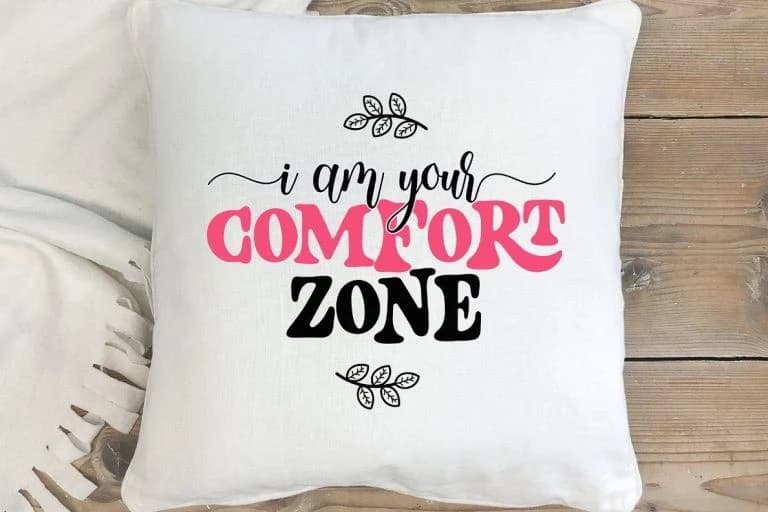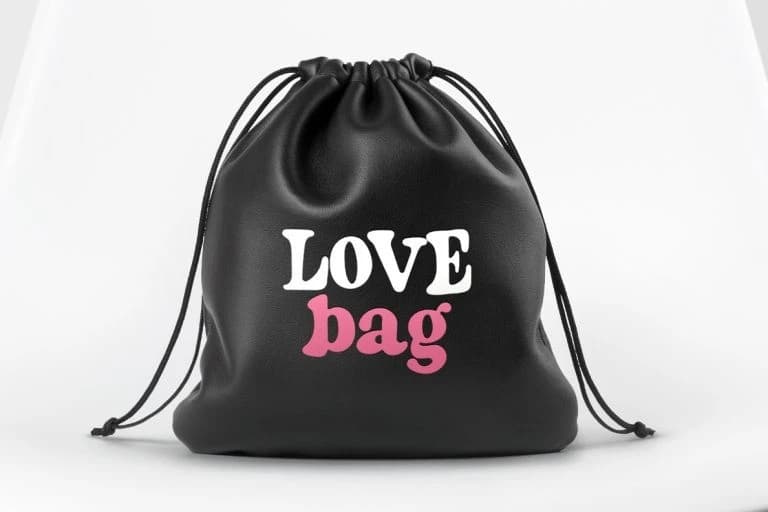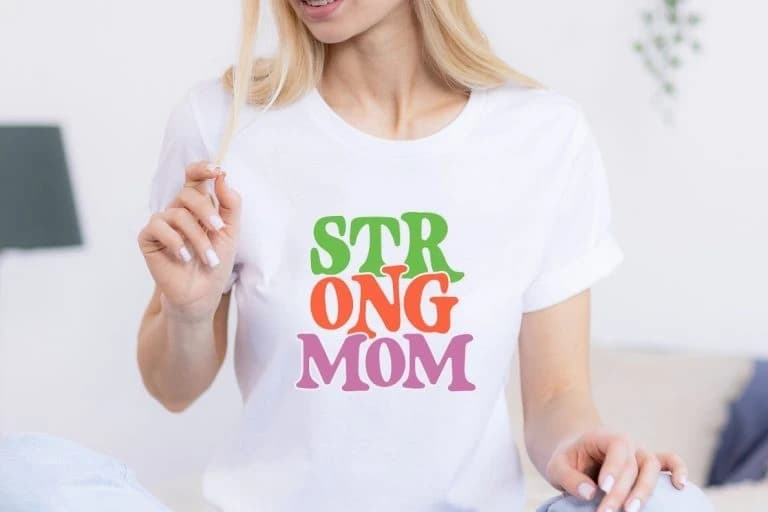
Brondy Display Font
Brondy Display Font is cute retro serif font. It has vintage, groovy, and fun style. It has some ligatures for uppercase to give more options in designing. This font is adorable font for design that needs cute and retro style, such as back to school design